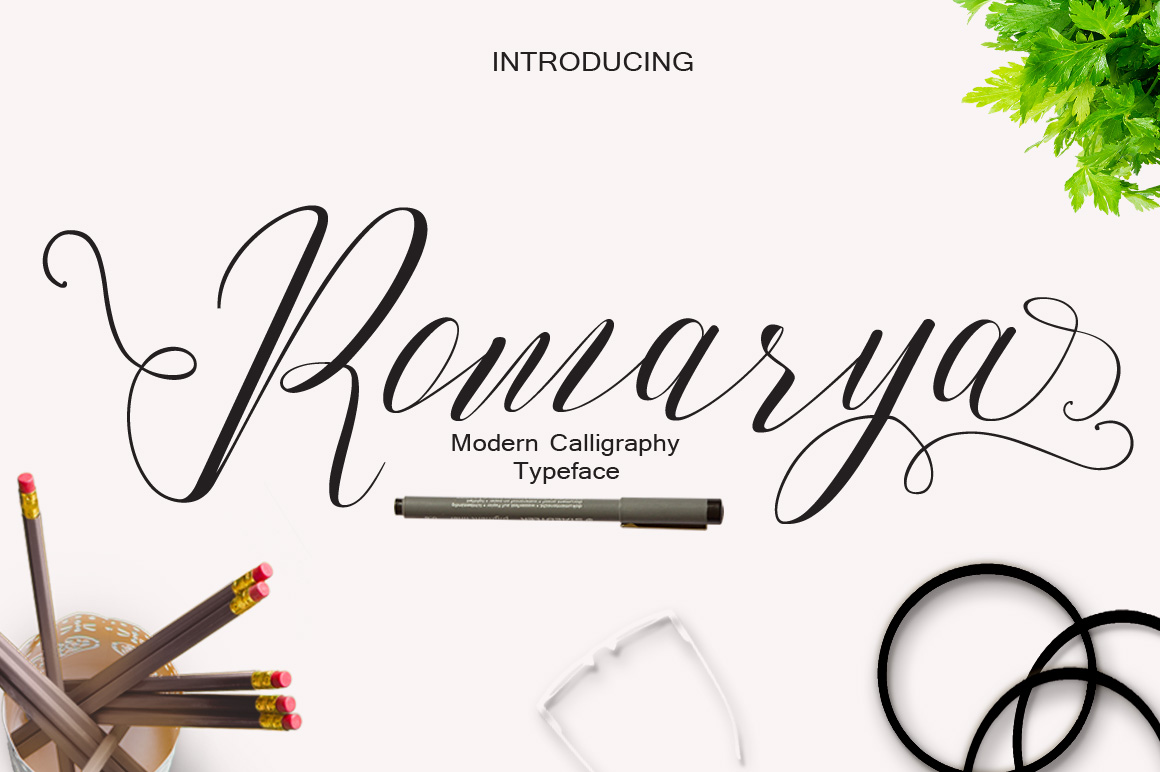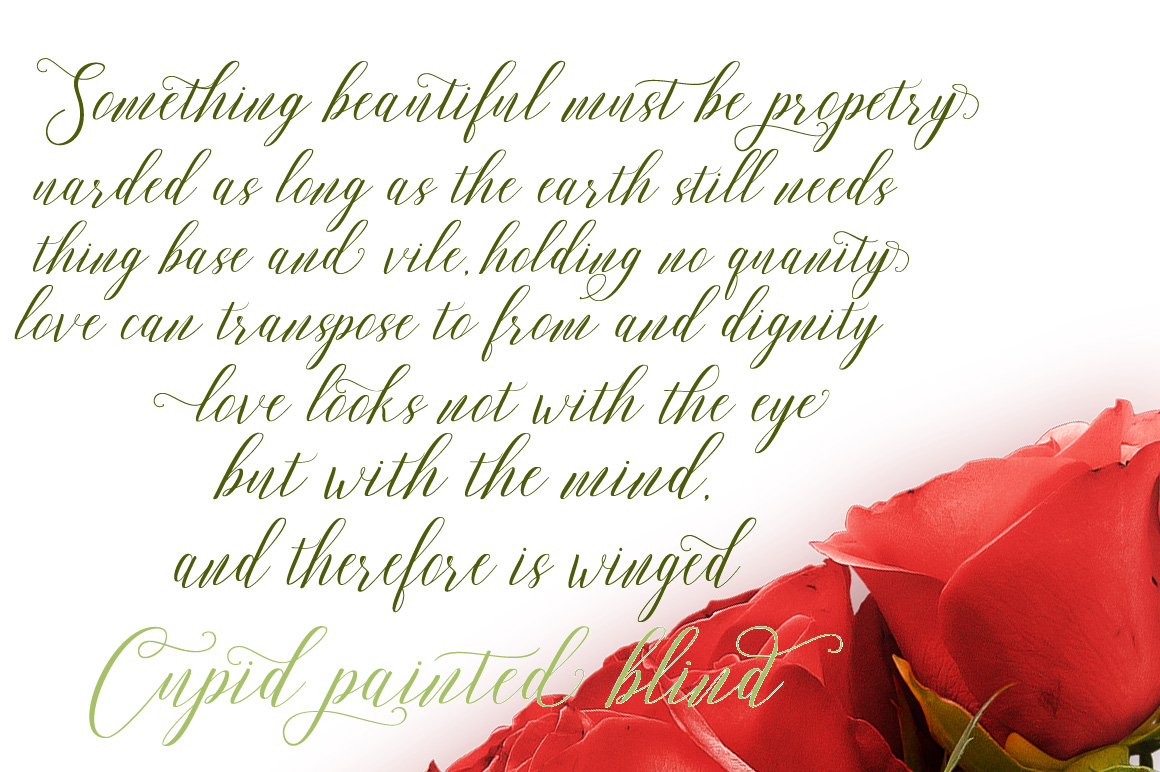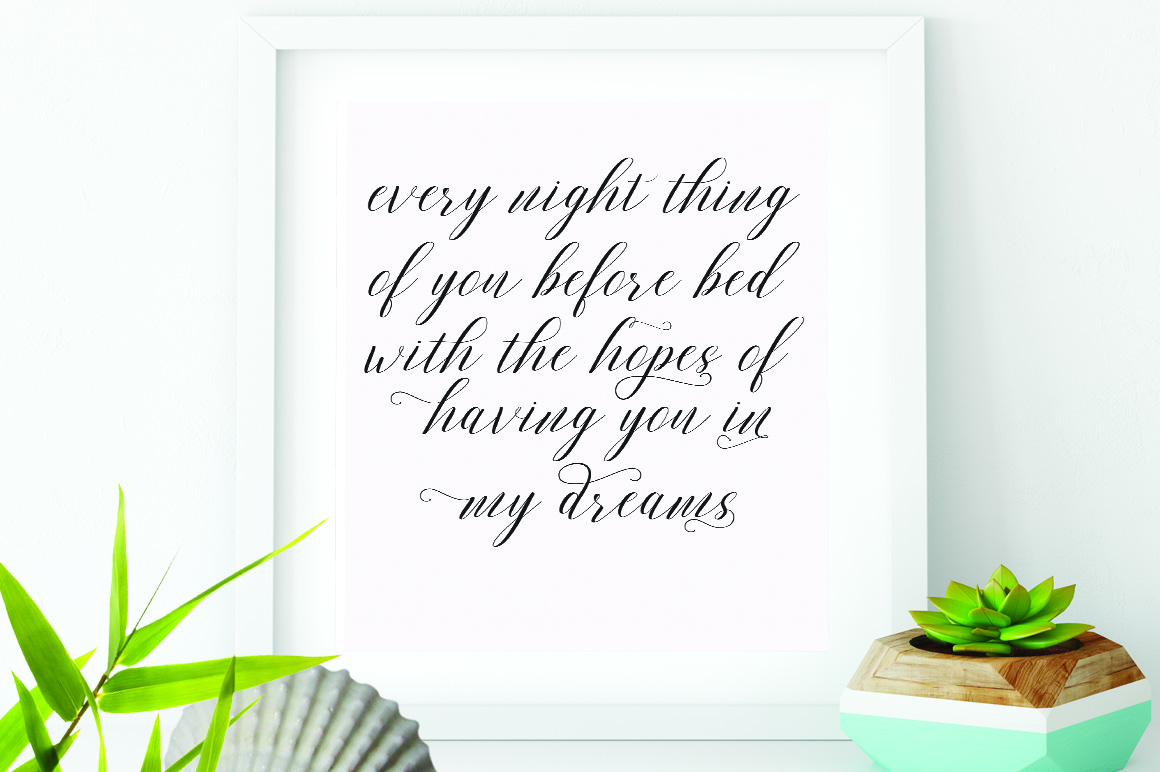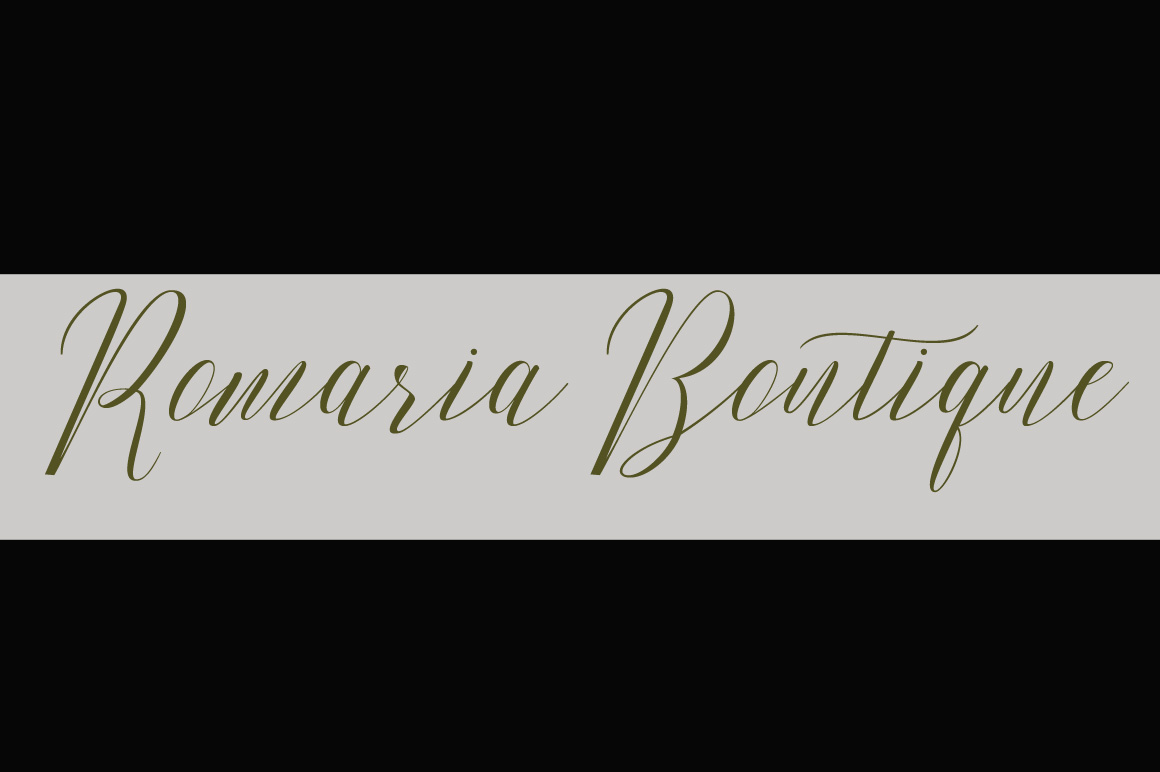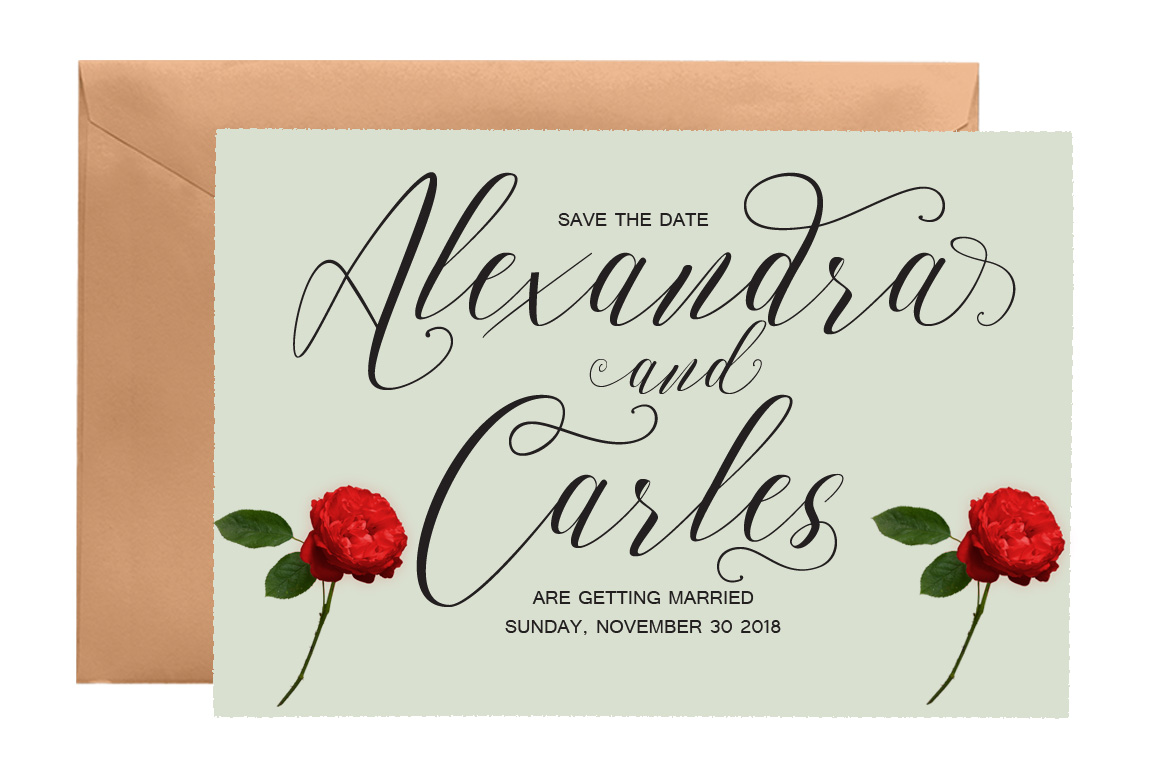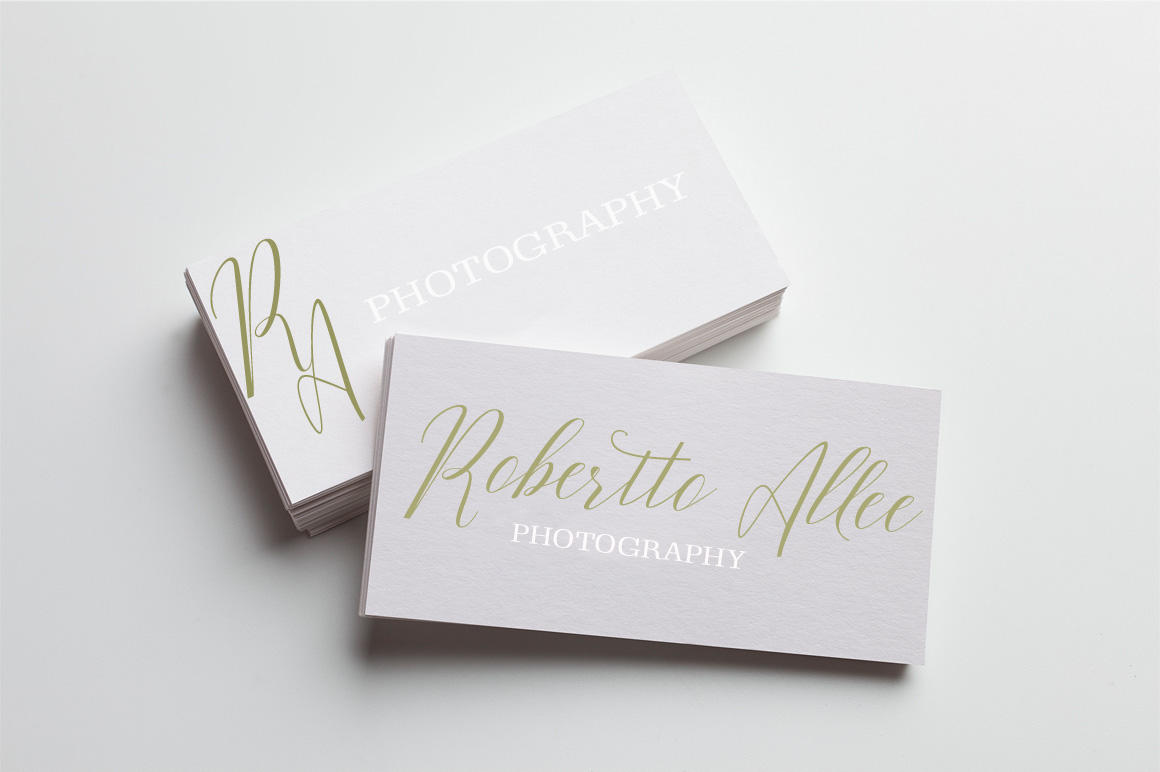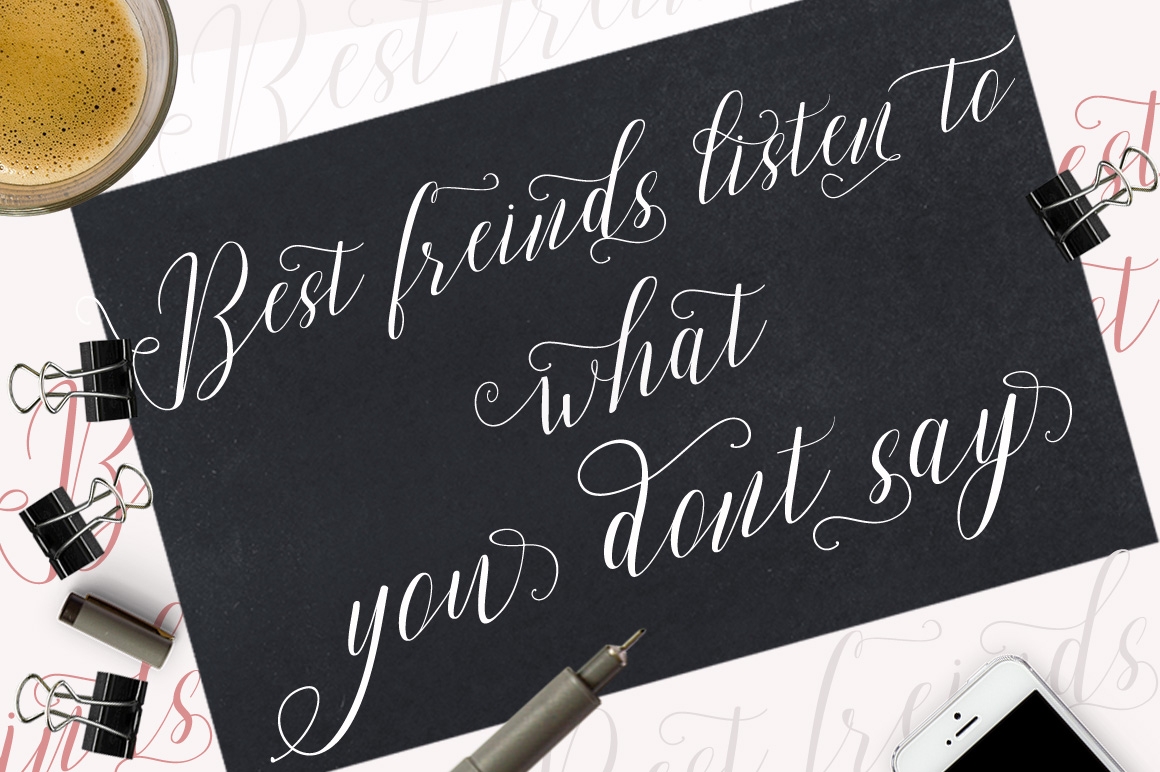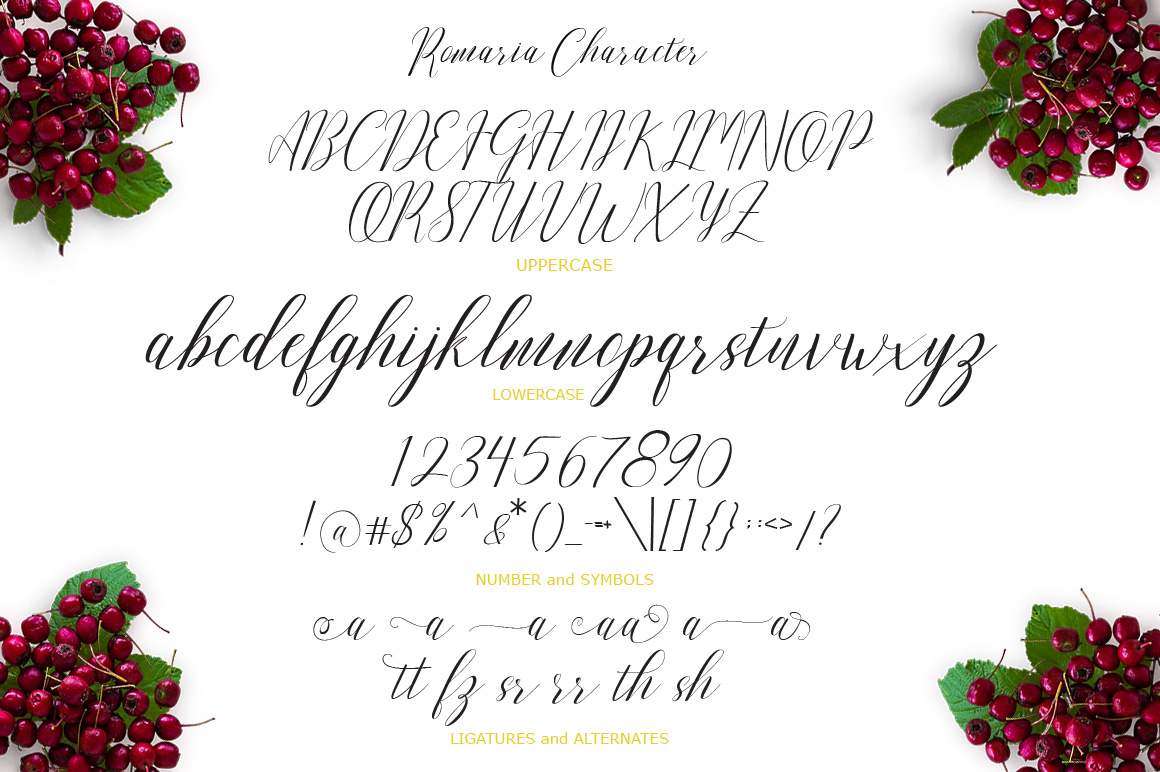
Romarya Font
About Romarya Font
Romarya is a beautiful calligraphic script font with stunning waves and a natural flowiness. With unique letter styling, this font has a soft and smooth character subtlety that will give your designs a wow factor.